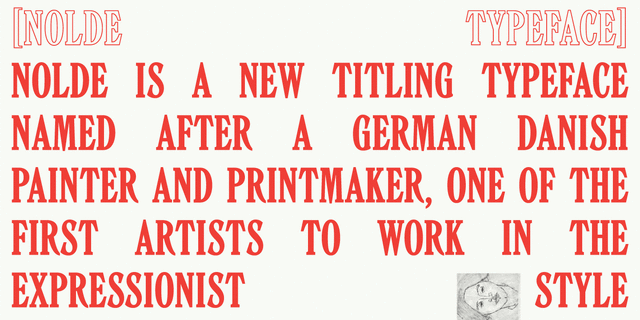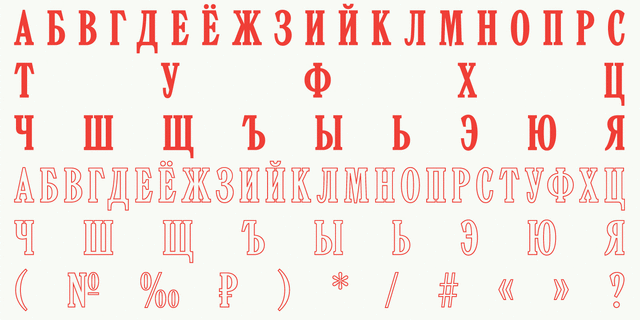
Nolde (2 fonts)
About NoldeNolde is a new titling typeface named after the German-Danish painter and printmaker Emil Nolde, one of the first artists to work in the Expressionist style. Not unlike the work of Nolde the artist, the seemingly rhythmical characters of Nolde the typeface conceal expressive tension of form and nervous line quality. While its letterforms hearken to the early-20th c. foundry types, this font makes a fresh and decidedly current impression, making it suitable for cutting-edge display use. Nolde capitals are available in two weights: regular and outline, and support over 60 languages that employ Latin and Cyrillic scripts. Designed by Gayaneh Bagdasaryan And Vyacheslav Kirilenko in 2015.
Associations for font family NoldeTypeface personality and character:
motivating, ambitious, strong, original, distinctive, traditional, artistic, expensive, rich, emotional, wooden, notable, cutting, old-fashioned, nostalgic, expressive, proud, pretentious, dramatic, solid, stable, authoritative, tall, loud, cinematic